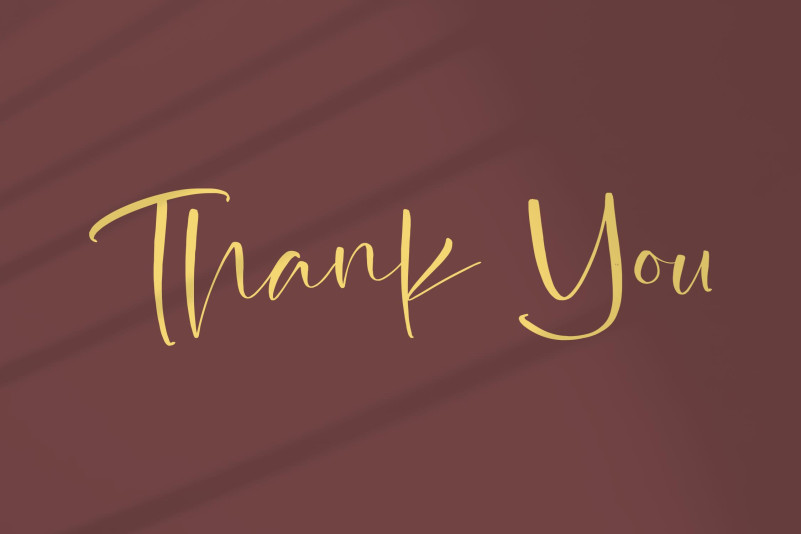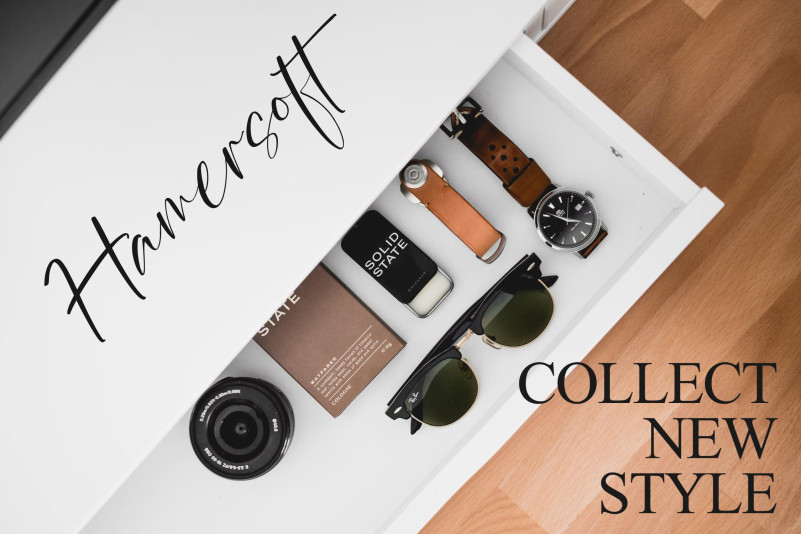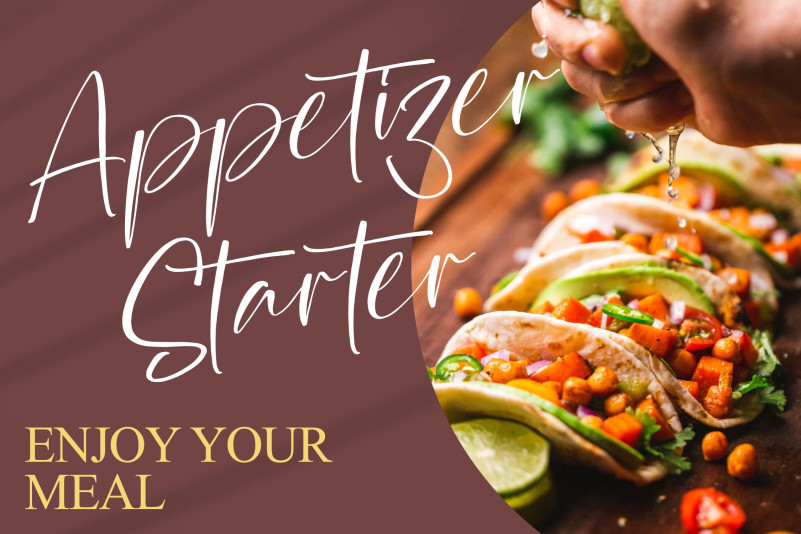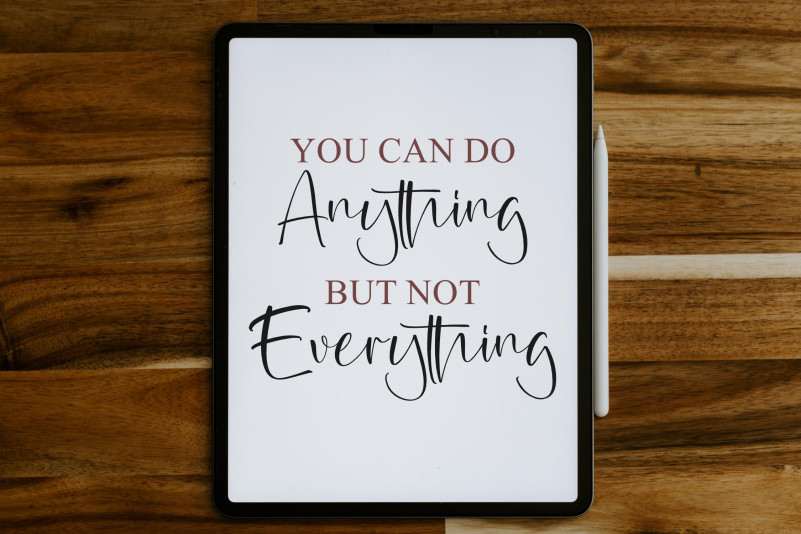
Yasintha Script Font is a Beautiful Script Font, suitable for any projects such as: logos, branding projects, homeware designs, product packaging, mugs, quotes, posters, shopping bags, t-shirts, book covers, name card, invitation cards, greeting cards, label, photography, watermark, special events, and all your other lovely projects that need a beautiful script taste.